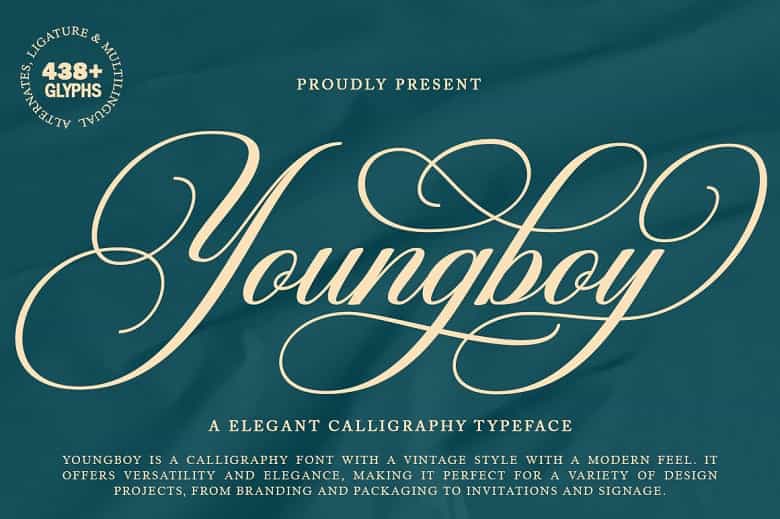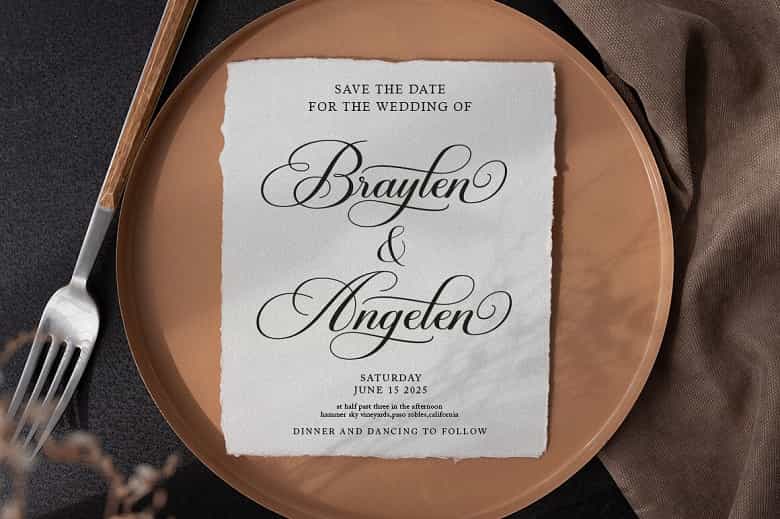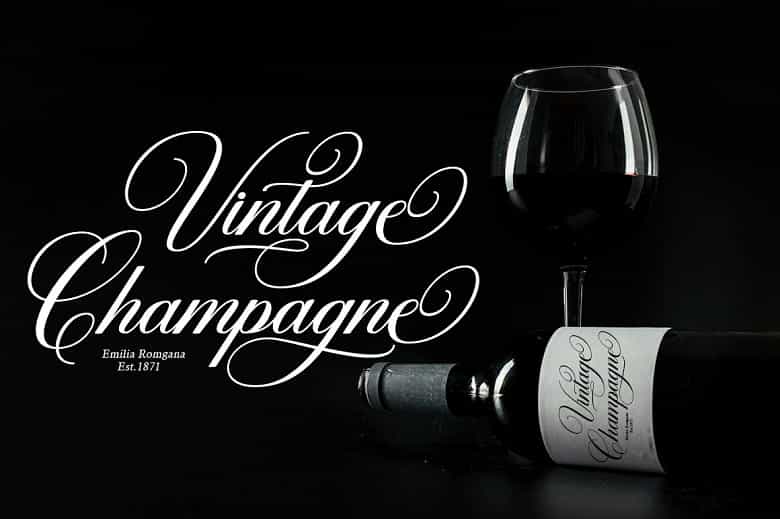
Youngboy is an elegant calligraphy font with a contemporary look and feel. It is a very flexible and stylish font that can be used in a number of applications, in business branding and packaging, for invitations, and for signs. Youngboy is a calligraphy font that includes some very nice alternate characters, a kind of traditional ornamental copperplate script with a contemporary flair, created with a high level of detail to give an elegant appearance.